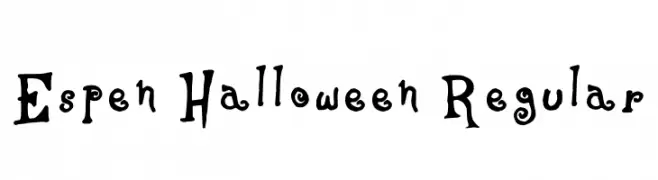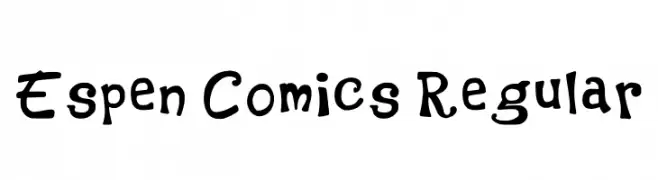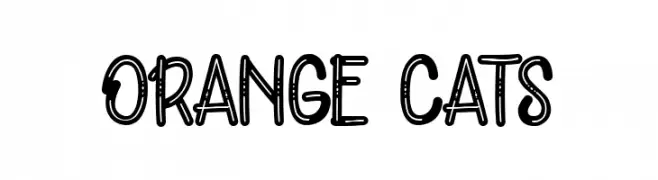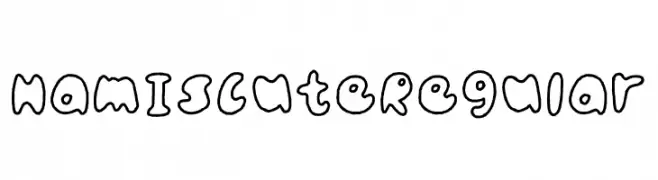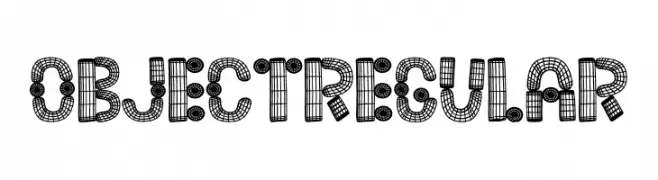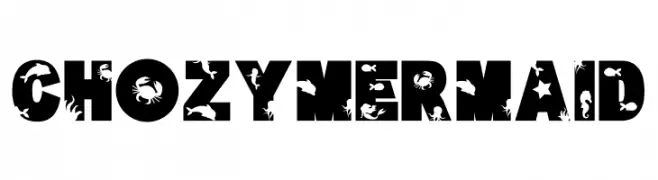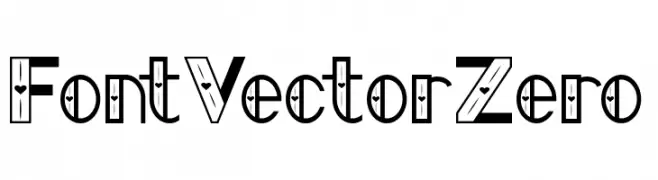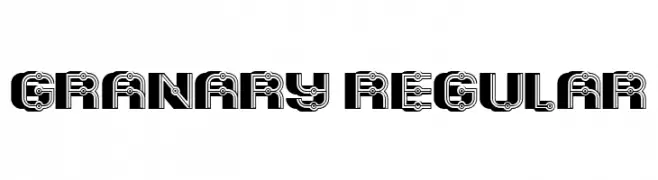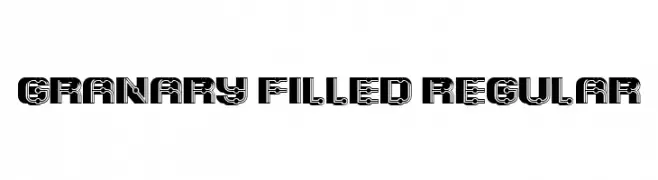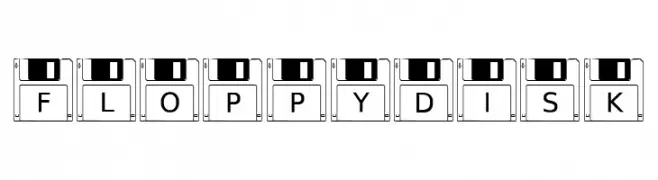
A playful, bold font with rounded, hand-drawn characters.
A playful, spooky font with quirky, irregular letterforms and Halloween motifs.
A playful, comic-style font with bold, hand-drawn characters.
A playful, hand-drawn font with bold outlines and rounded edges.
A playful, hand-drawn font with bold, rounded characters and a cartoonish vibe.
A 3D grid-style font with a mechanical, industrial look.
A bold, decorative font with sea-themed cutouts, perfect for creative projects.
A decorative font with bold geometric shapes and intricate internal patterns.
A bold, decorative font with circuit-like patterns and a modern, technological feel.
A bold, geometric font with filled patterns and a modern, decorative style.
A nostalgic font with characters embedded in floppy disk outlines.
A playful, heart-themed font with a hand-drawn feel, perfect for romantic designs.
A playful pictogram font with stick figure scenes in rounded squares.
A modern, futuristic font with rounded, geometric shapes and mirrored elements.
A display font with vintage car illustrations as glyphs.
A modern, minimalist font with rounded edges and geometric structure.
A decorative font with characters shaped like rifles, offering a bold, thematic style.
A modern, geometric font with bold lines and a futuristic style.
A diverse set of restroom sign icons with traditional and modern designs.
A geometric font featuring astrological symbols and celestial icons.
A thin, modern font with elongated, narrow letterforms and consistent stroke width.
A bold, cursive font with a dynamic and elegant style.
A modern, geometric font with consistent stroke width and rounded edges.
A bold, rounded, and modern font with a playful and approachable style.
A sleek, cursive font with elongated, flowing lines and a modern elegance.
A dingbat font featuring diverse fingerprint graphics.
A whimsical, Christmas-themed decorative font with playful holiday icons.
A modern, geometric sans-serif font with a sleek, condensed style.
A decorative font mimicking international passport stamps and seals.
A pixelated, bitmap-style font with a retro digital aesthetic.
近期热门包括 BREAKBONE, Espen Halloween Regular, Espen Comics Regular, ORANGE CATS and Ham Is Cute Regular 它们在清晰度与个性之间取得平衡,适用于科技品牌、编辑排版与社媒视觉。